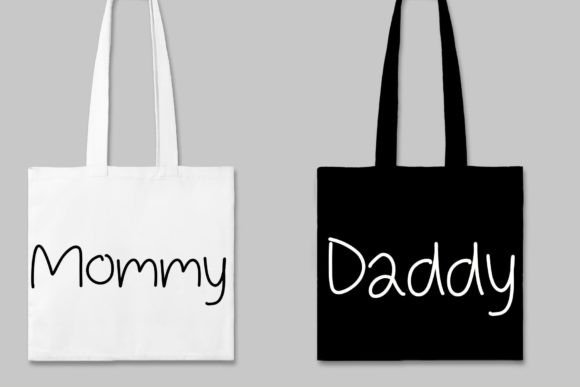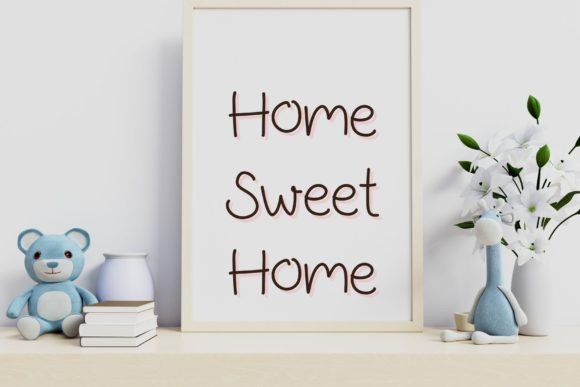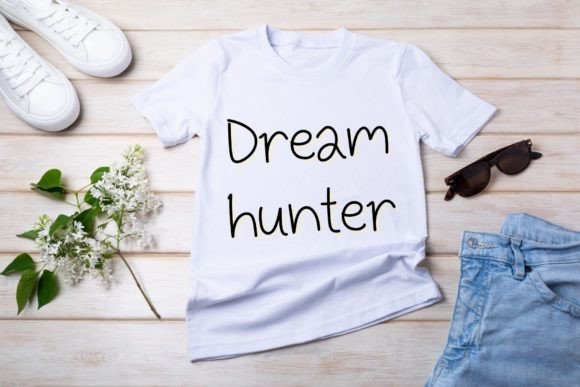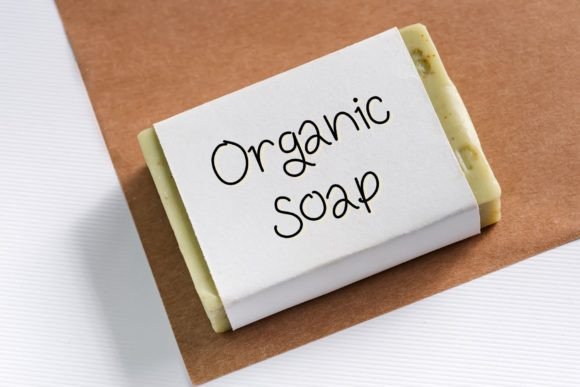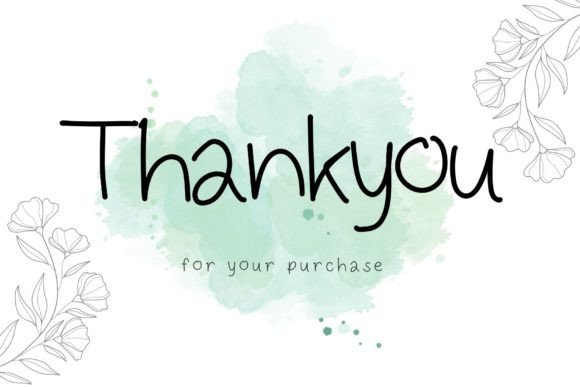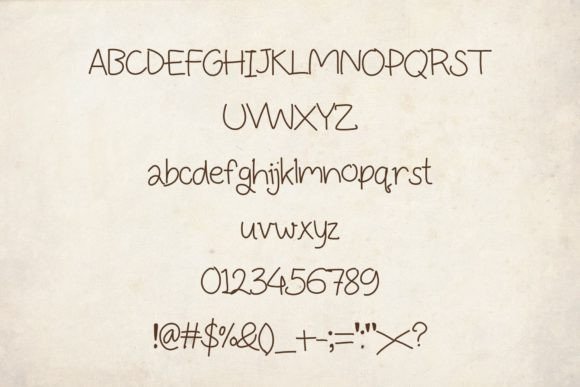
The Benjamin Font: Elevate Your Designs with Sophistication and Style
An Honest Review of Benjamin Font
• ✨ Sophisticated and elegant: Benjamin font boasts a refined, high-end feel that’s perfect for luxury brands, fashion designs, and creative projects that require a touch of sophistication.
• ✅ Versatile: This font is incredibly versatile, making it suitable for a wide range of design applications, from headings and titles to body text.
• 💡 OpenType features: Benjamin font comes with a range of OpenType features, including stylistic alternates, ligatures, and glyphs, giving you plenty of creative options.
While Benjamin font is an excellent choice, it’s not without its quirks. For instance:
• 🤔 Limited availability of certain glyphs: Some users have reported that certain glyphs, such as the Euro symbol, are not readily available.
• ⚠️ Not ideal for body text: While Benjamin font can be used for body text, it’s not the most optimal choice. It’s best suited for headings, titles, and short paragraphs.
The Designer Inspiration Behind Benjamin Font
Benjamin font was inspired by the works of renowned typographer, Benjamin Franklin. The font’s creator aimed to capture the essence of Franklin’s elegant and refined writing style, while infusing it with a modern twist. The result is a font that’s both sophisticated and versatile.
Q: What type of projects is Benjamin font best suited for?
A: Benjamin font is ideal for luxury brands, fashion designs, and creative projects that require a touch of sophistication and elegance.
Q: Can I use Benjamin font for body text?
A: While Benjamin font can be used for body text, it’s not the most optimal choice. It’s best suited for headings, titles, and short paragraphs.
Q: Does Benjamin font come with OpenType features?
A: Yes, Benjamin font comes with a range of OpenType features, including stylistic alternates, ligatures, and glyphs.
Q: Is Benjamin font suitable for digital and print designs?
A: Absolutely! Benjamin font is designed to work beautifully in both digital and print designs.